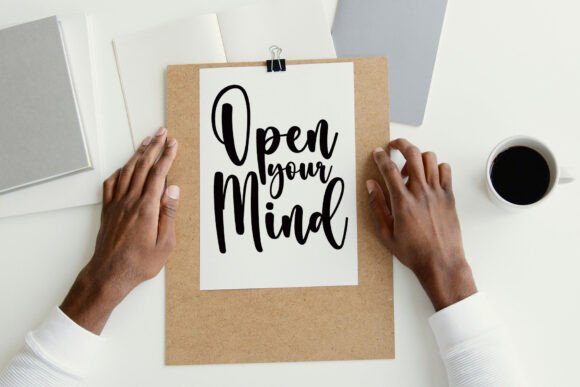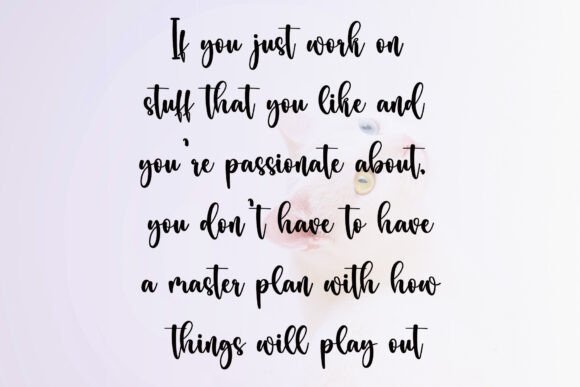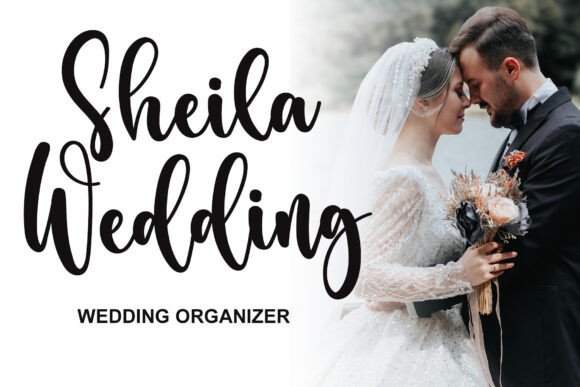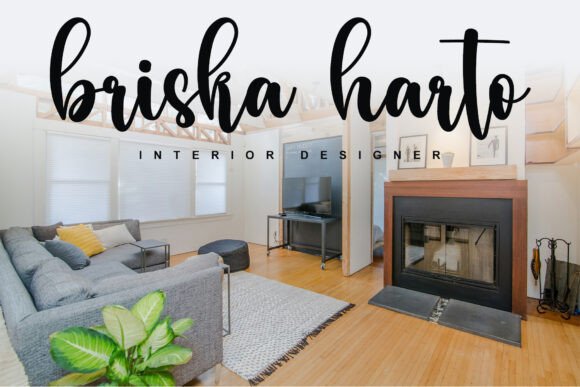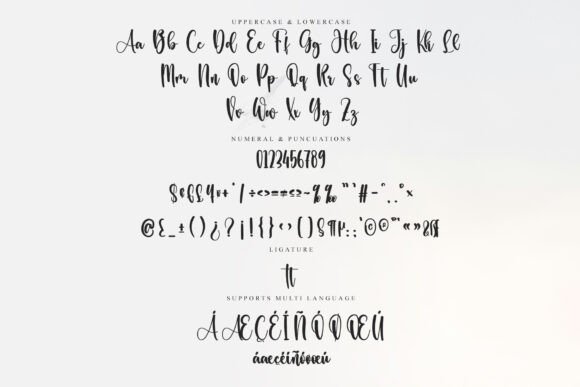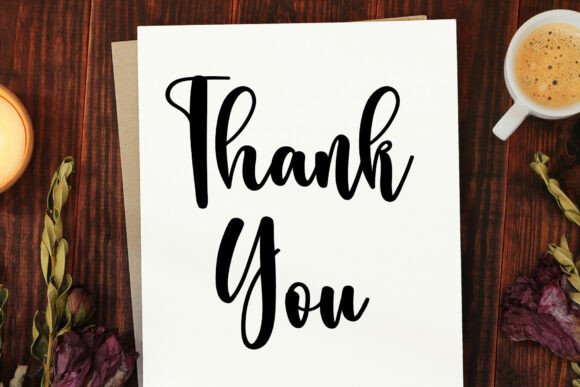
Frostbite Font: Elevate Your Designs with Elegance and Delicacy
In the world of typography, a font can make or break a design. For designers and crafters seeking to add a touch of sophistication and charm to their projects, the Frostbite Font is an excellent choice. This elegant and delicate handwritten typeface is perfect for a wide range of design needs, from logos and branding to social media posts, advertisements, business cards, wedding invitations, and product design.
What Makes Frostbite Font Stand Out?
Frostbite Font boasts a unique, handcrafted aesthetic that sets it apart from more generic fonts. Its elegant and delicate nature makes it ideal for designs where a touch of refinement and luxury is desired. Whether you’re working on a logo, a wedding invitation, or a product design, Frostbite Font can help elevate your project with its distinctive charm.
One of the key advantages of Frostbite Font is its versatility. This font is not limited to a specific type of design but can be used across various platforms and projects. Here are some of the areas where Frostbite Font can make a significant impact:
- Logos and Branding: Create a memorable brand identity with a logo that stands out, thanks to the unique and elegant look of Frostbite Font.
- Social Media Posts: Enhance your social media presence with stylish text that captures the attention of your audience.
- Advertisements: Make your ads more appealing and engaging with a font that exudes elegance and sophistication.
- Business Cards: Leave a lasting impression with business cards that feature a refined and professional look.
- Wedding Invitations: Add a touch of romance and luxury to your wedding invitations, making them truly unforgettable.
- Product Design: Whether it’s packaging, product labels, or promotional materials, Frostbite Font can help your product stand out on the shelves.
Frostbite Font is PUA (Private Use Area) encoded, which means that accessing all the glyphs and alternates is straightforward. This feature is particularly beneficial for designers who want to have full control over the typography in their projects. With PUA encoding, you can easily access:
- Alternate characters
- Swashes
- Ligatures
- and other glyph variations
This level of accessibility allows for greater creativity and flexibility in your designs, ensuring that you can achieve the exact look and feel you’re aiming for.
Why Choose Frostbite Font?
With so many fonts available, why should Frostbite Font be your go-to choice? Here are a few compelling reasons:
- Elegance: Frostbite Font offers a level of elegance that can elevate any design.
- Versatility: Its wide range of applications makes it a valuable addition to any designer’s toolkit.
- Accessibility: Being PUA encoded, it provides easy access to a variety of glyphs and alternates.
- Uniqueness: Its handcrafted nature ensures that your designs stand out from the crowd.
Frostbite Font is more than just a typeface; it’s a design tool that can transform your projects with its elegant and delicate charm. Whether you’re a professional designer or a crafter, this font offers the versatility, accessibility, and uniqueness you need to create stunning designs. From logos and branding to wedding invitations and product design, Frostbite Font is an excellent choice for anyone looking to add a touch of sophistication and luxury to their work. So, why wait? Explore the possibilities with Frostbite Font today and take your designs to the next level.